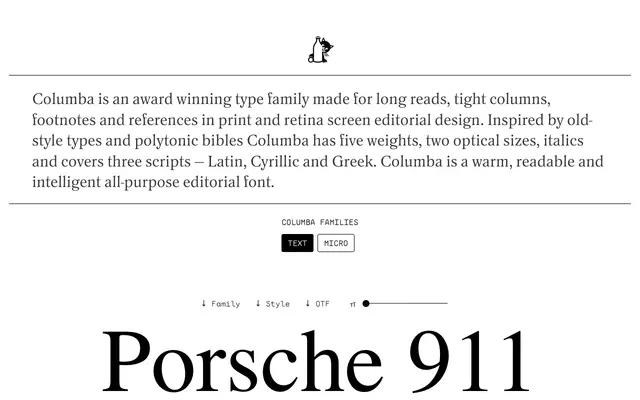
Columba
An old-style editorial serif by Lewis McGuffie, purpose-built for long-form reading in print and on screen, with optical sizes spanning 5pt to full text and full coverage of Latin, Cyrillic and Polytonic Greek.
Columba comes in two families, Text for 9pt and above and Micro for 5-8pt, each running through five weights with matching italics, giving 20 styles in total. Drawn with deliberately irregular stems to warm the reading texture, it won the 2019 Granshan Grand Prize for Non-Latin Scripts on the strength of its extended Cyrillic and Polytonic Greek coverage, which includes Vietnamese Latin. The family suits dense editorial environments such as footnotes, tight columns and reference matter where most serifs struggle at small sizes.
Columba is inspired by old-style types and polytonic bibles, with irregular stems and warm optical characteristics consistent with humanist old-style serif traditions, designed specifically for editorial text use across multiple scripts.